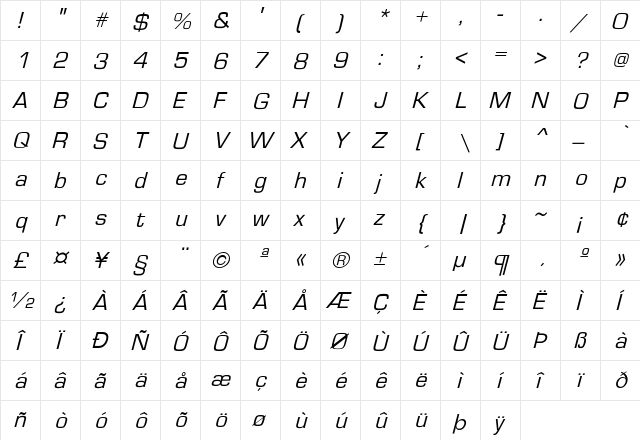
GardenwayObl-Normal Regular
GardenwayObl-Normal offers clean, dependable letterforms without strong stylistic allegiance, making it a practical choice for designers who need flexibility.